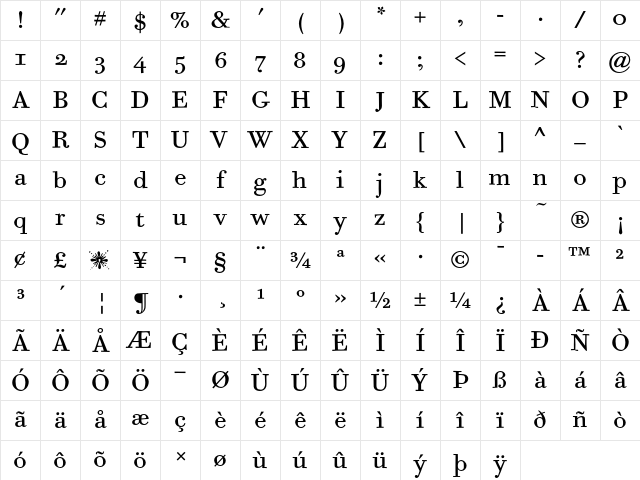
Bodoni Six ITC Book OS
Style: Book OS
Bodoni Six ITC Family
Complete Bodoni Six ITC Book OS glyph index. Displaying only characters natively supported by Bodoni Six ITC Book OS font.
Design Context for Bodoni Six ITC
Bodoni Six ITC is a composed and adaptable typeface that performs quietly and consistently across a wide range of design contexts.
Pro Tip: Use Bodoni Six ITC in both headline and body roles to test its range before committing to a single application.